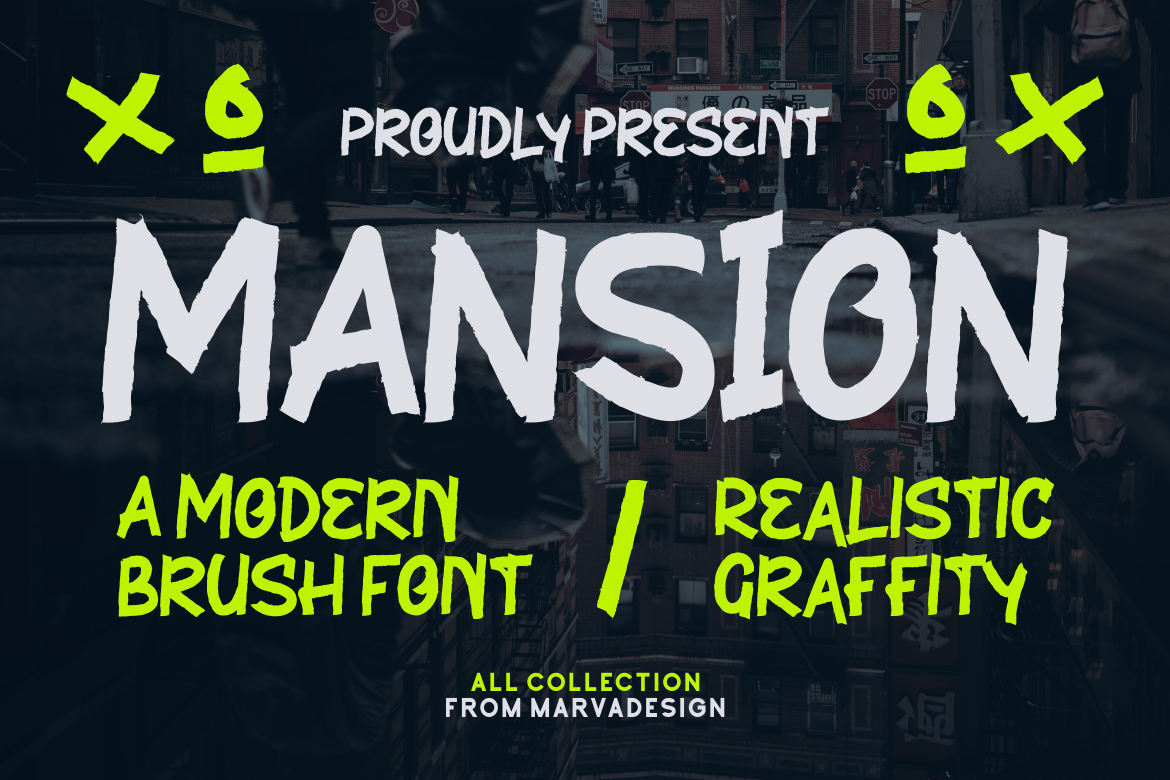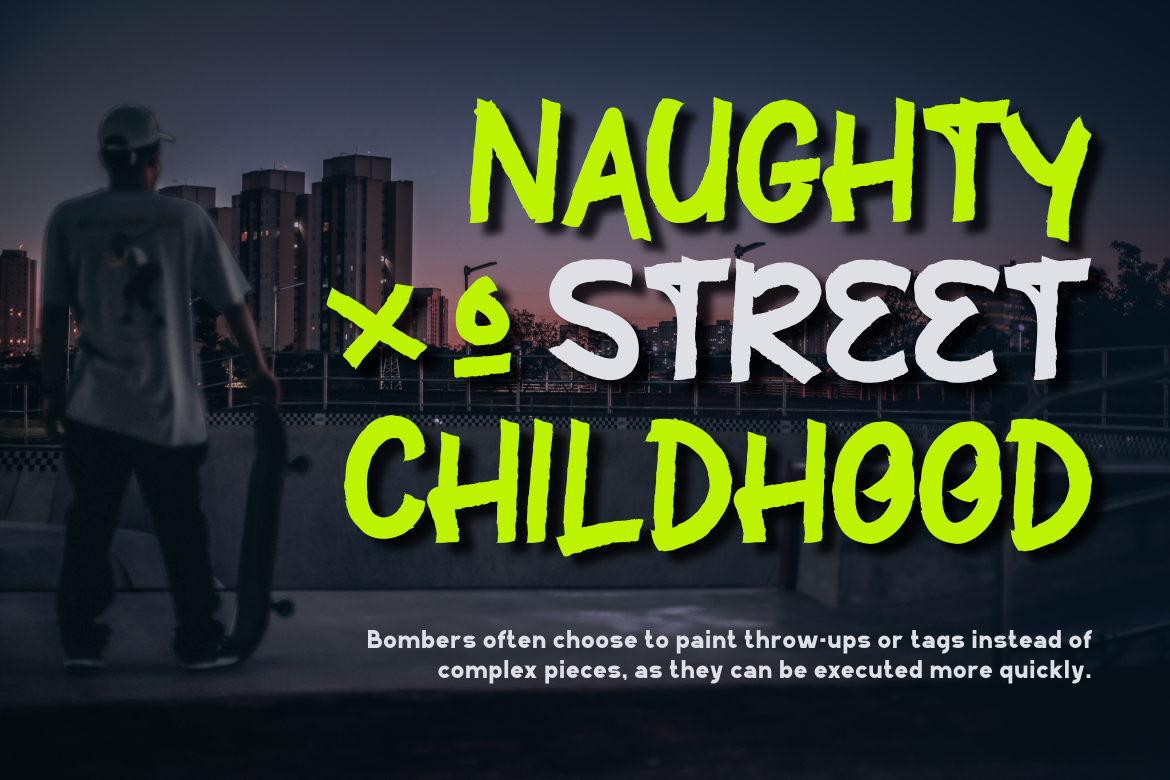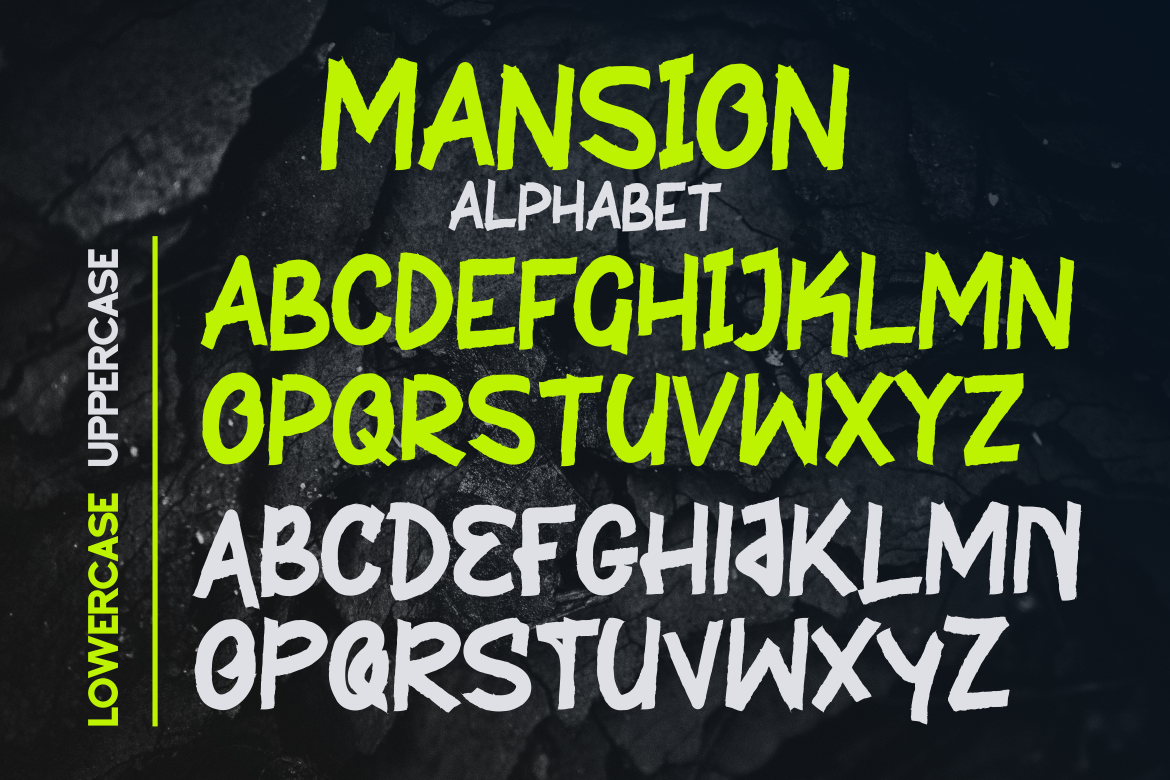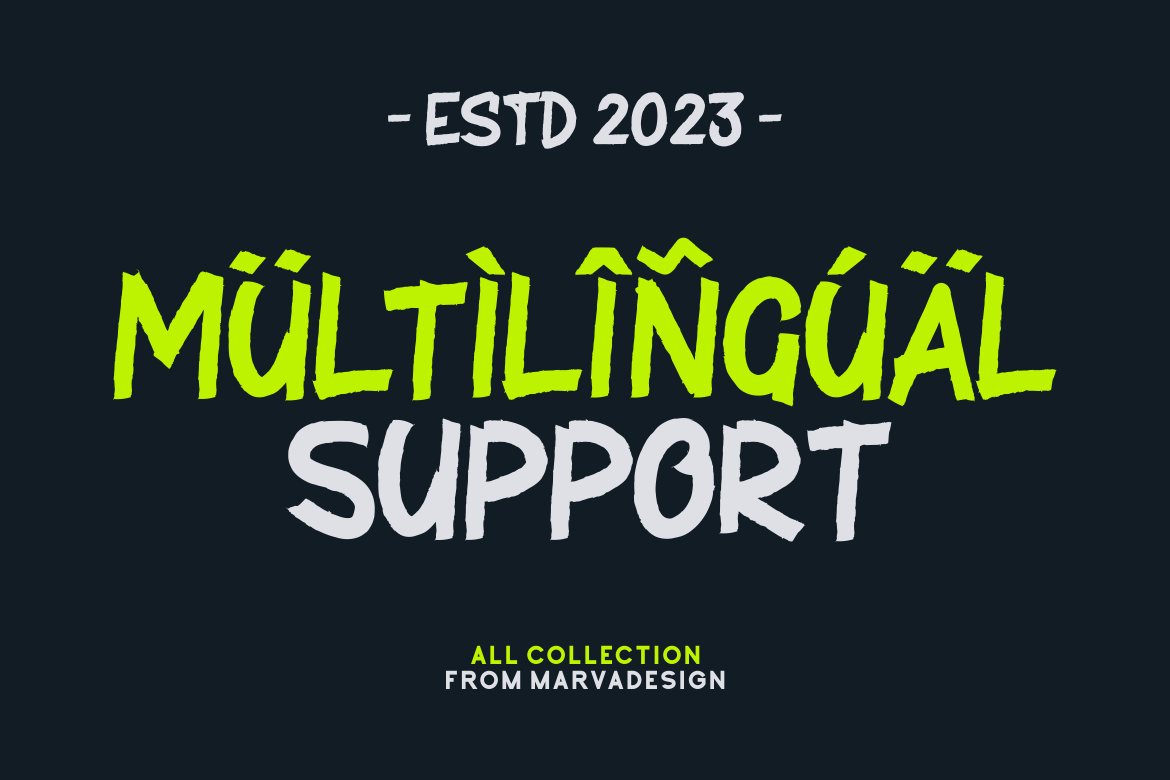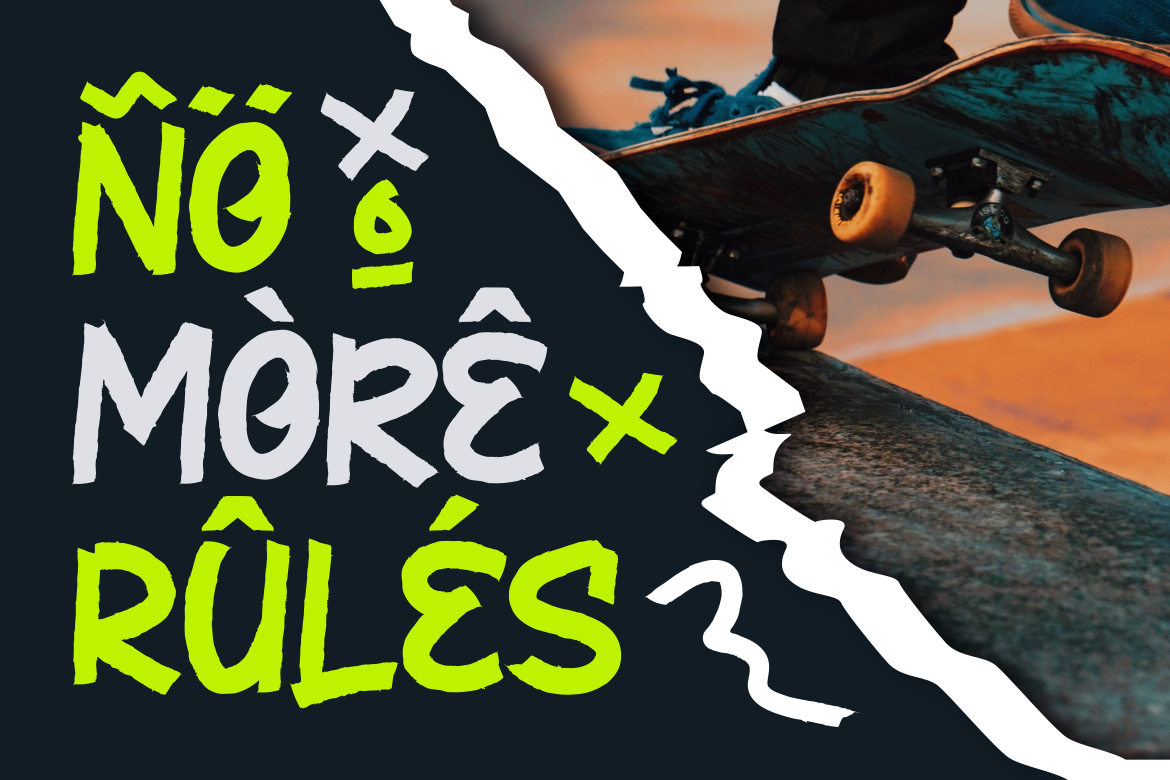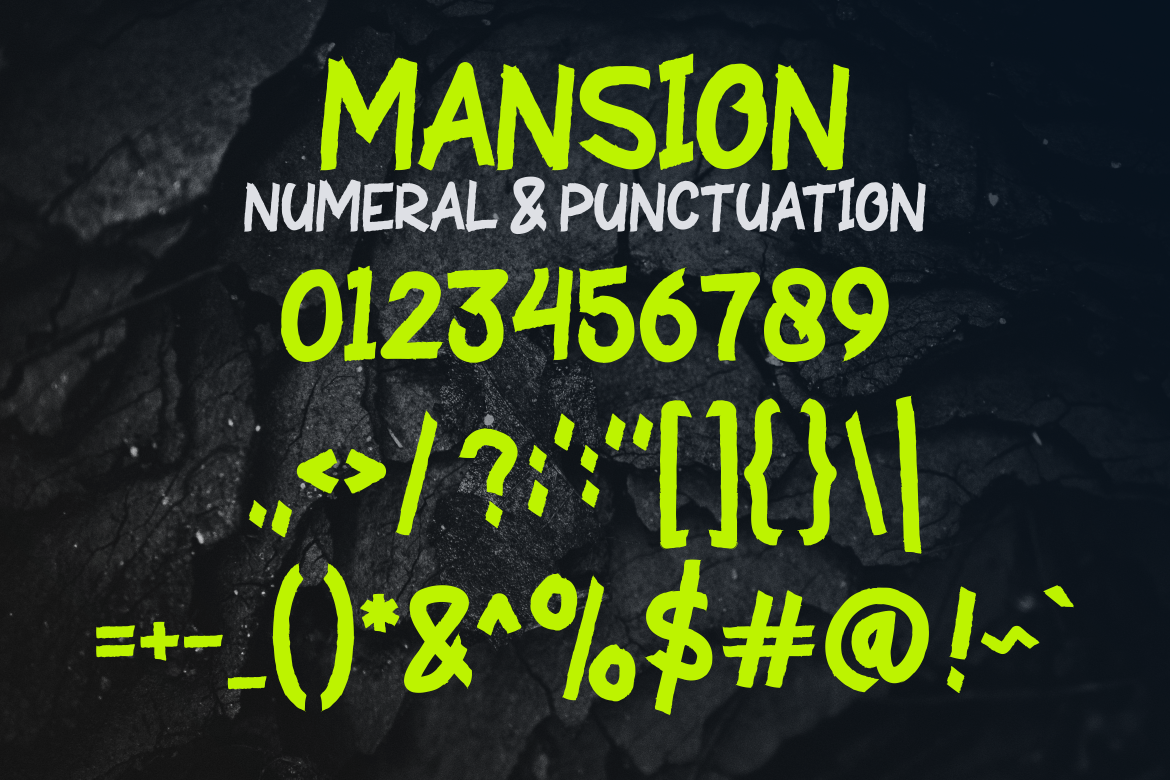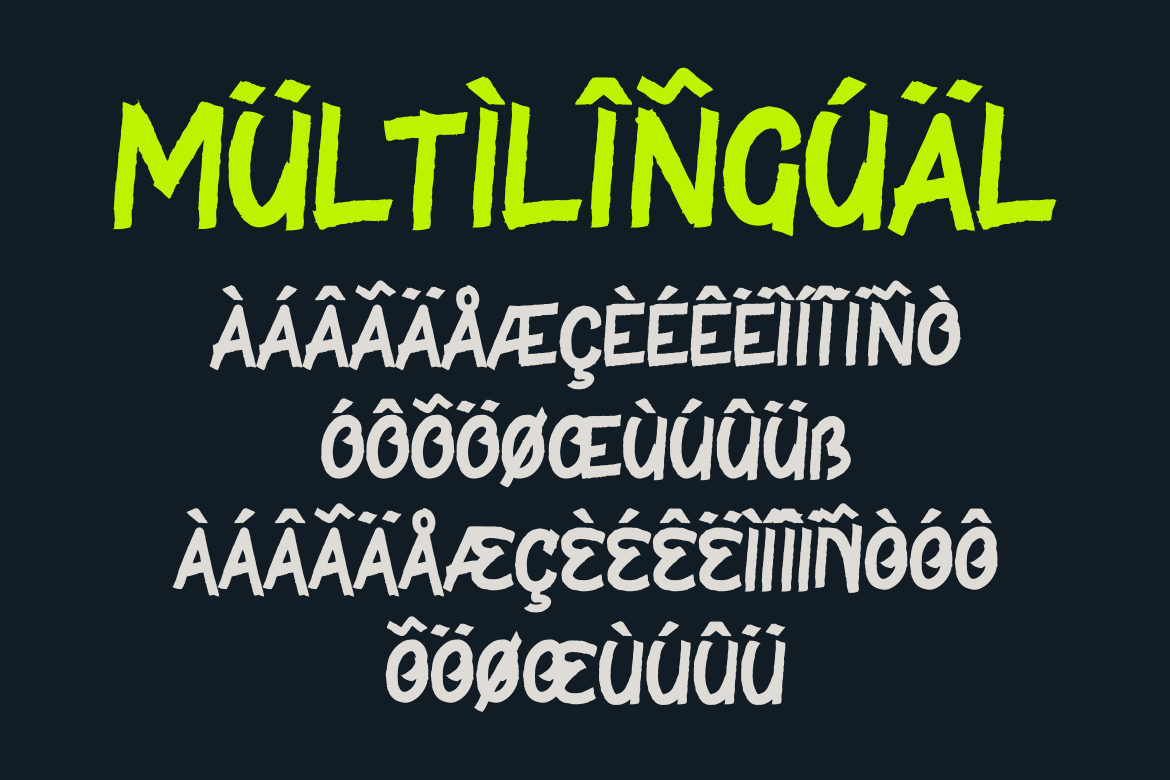
Introducing our new product MANSION Font - Modern Font MANSION Font** - Modern Font is a bold and authentic display font. The font is suitable for any branding project like logo,Template Design, Product and many more. outstanding in a wide range of contexts.